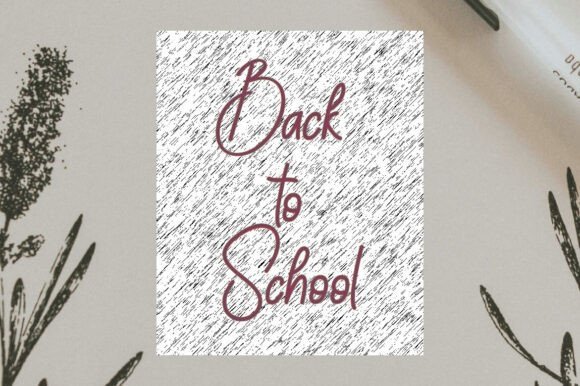
Aquamarina Font: Where Creativity Meets Timeless Elegance
As a designer, have you ever experienced that moment when a blank canvas or a blank page stares back at you, and all you can think is ‘where do I start?’ It’s a feeling we’ve all been there, and yet, it’s often the spark that ignites our creativity. And for some of us, that spark can come in the form of a simple yet striking typeface – the Aquamarina Font.
| 👤 Author | Chequered Ink |
This versatile font is perfect for any design project that needs to stand out from the crowd. With its elegant lines and subtle nuances, the Aquamarina Font can add a touch of sophistication to any visual project, from logos to typography and beyond. For designers, this font is a valuable tool that can help elevate their work and leave a lasting impression on their audience.
Aquamarina Font Key Features
- Font Style: Script, Calligraphy
- Unique Characteristics: Elegant, flowing script with a touch of sophistication, ideal for invitations, weddings, and other special occasions
Aquamarina Font Review
I recently had the chance to work with the Aquamarina Font, and I must say it’s a unique and captivating choice. Here are some of its strengths and weaknesses.
- The font’s elegant, cursive script is perfect for titles and headings that need a touch of sophistication.
- The font’s weight range is impressive, allowing for a variety of styles and effects to be achieved.
- The font is highly legible, even at small font sizes, making it suitable for a wide range of applications.
- The font’s script style may not be suitable for body text, as it can be quite dense and difficult to read in large blocks.
- The font lacks a condensed version, which may limit its use in certain design situations.
- The font’s character set is limited, which may cause issues when working with non-English languages.
Aquamarina Font is a beautiful and elegant choice for certain design applications. While it has some limitations, its strengths make it a great option for designers looking to add a touch of sophistication to their work. I would recommend it for titles, headings, and other design elements where a cursive script is needed.
Tips for Getting the Most Out of Aquamarina Font
Aquamarina Font is a beautiful, elegant font that works well for a variety of applications, including:
Branding and marketing materials
Book covers and interior design
Use Aquamarina Font to add a touch of sophistication and whimsy to your designs.